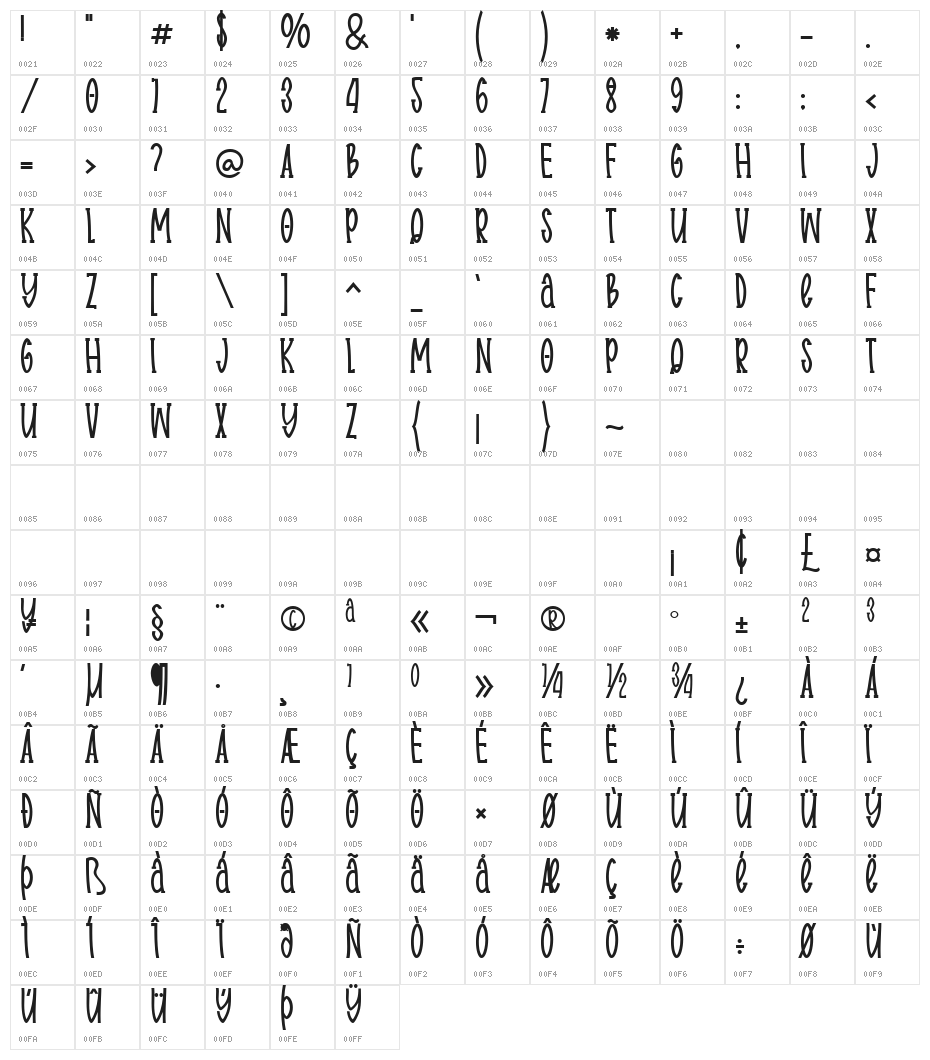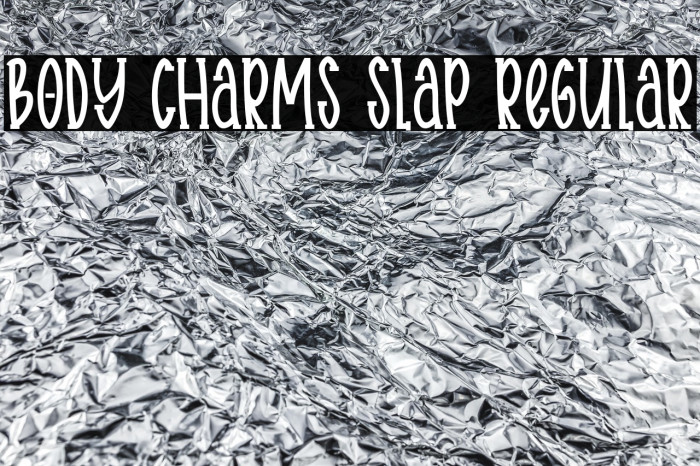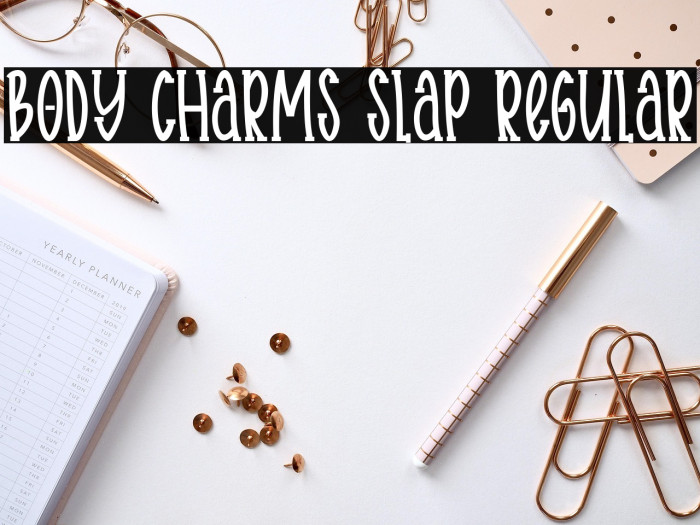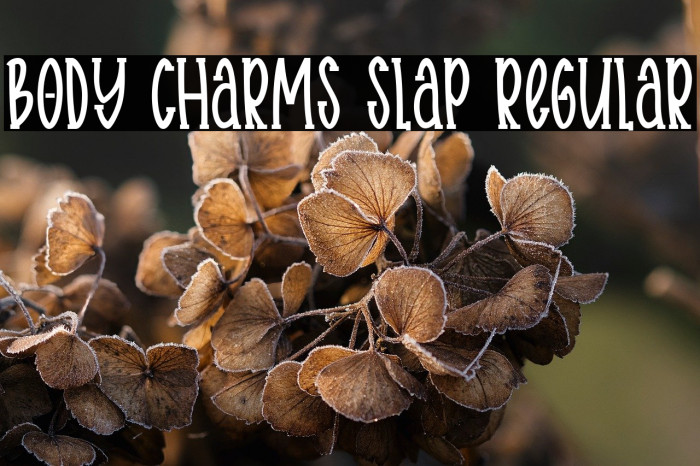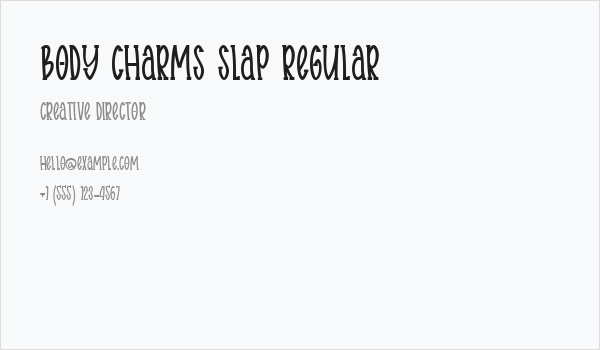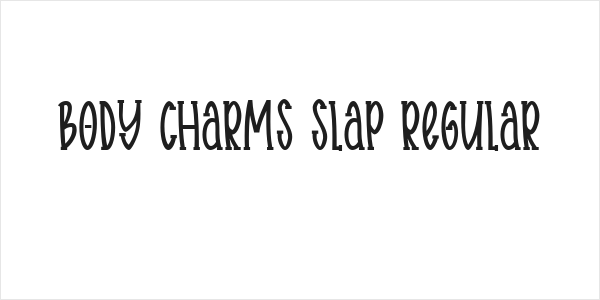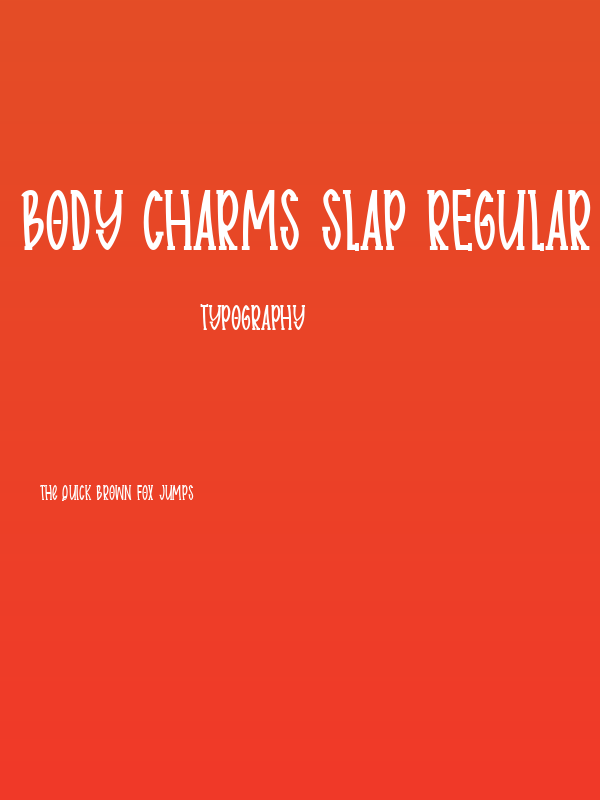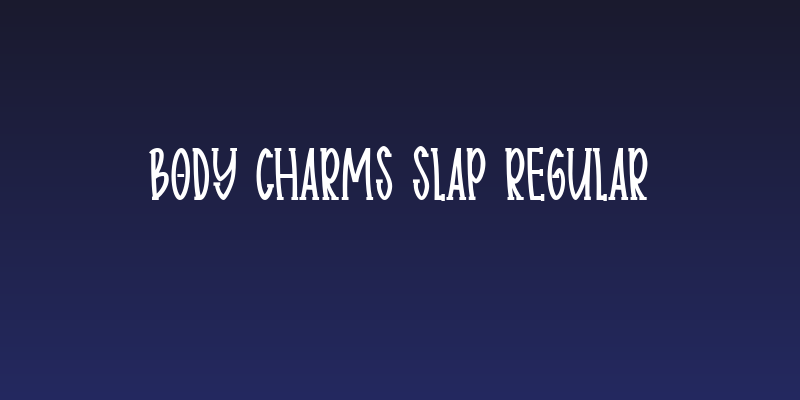
Body charms slap Regular Font
Body charms slap Regular Description
This font features a playful and whimsical design with tall, narrow characters that exhibit a hand-drawn quality. The letters have a slight slant, adding to their dynamic appearance. The strokes are consistent in width, giving the font a uniform look. The uppercase and lowercase letters maintain a similar style, with the lowercase being slightly smaller in size. Numbers and special characters are included, matching the overall aesthetic. This font is ideal for projects that require a fun and informal touch.
| Overall Style | Whimsical, Playful |
| Proposed Projects | Ideal for children's books, greeting cards, playful branding, and creative posters. |